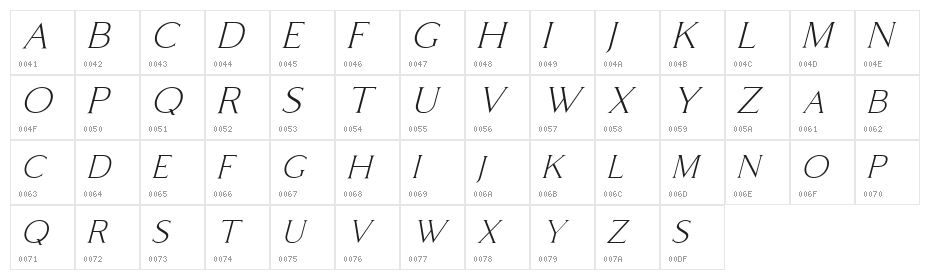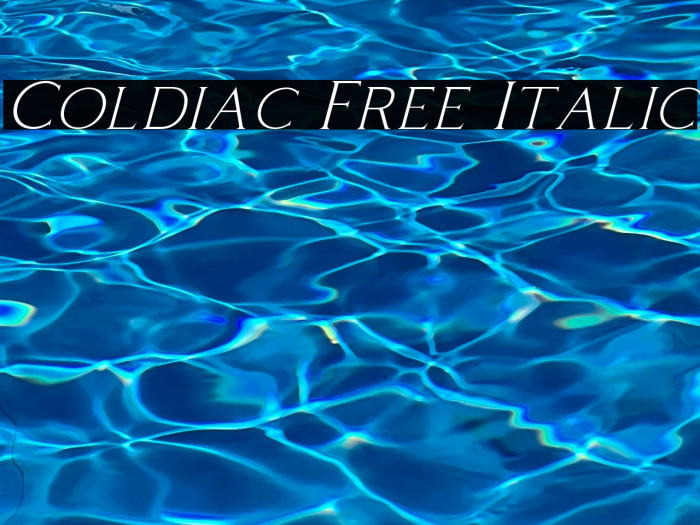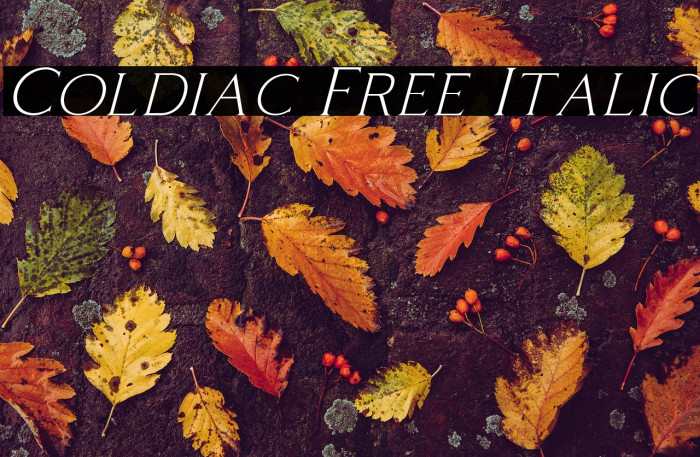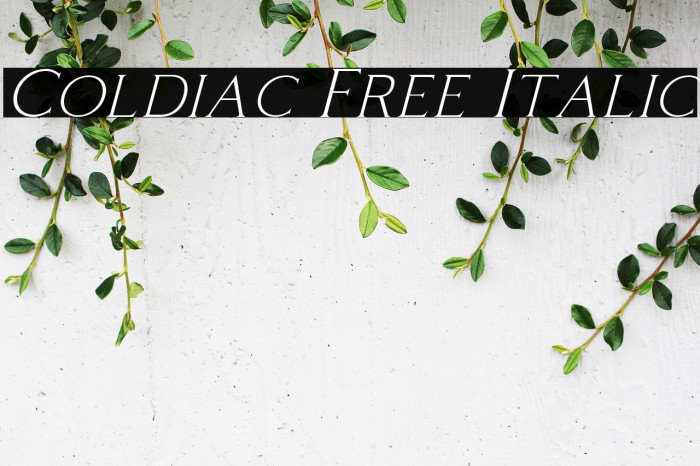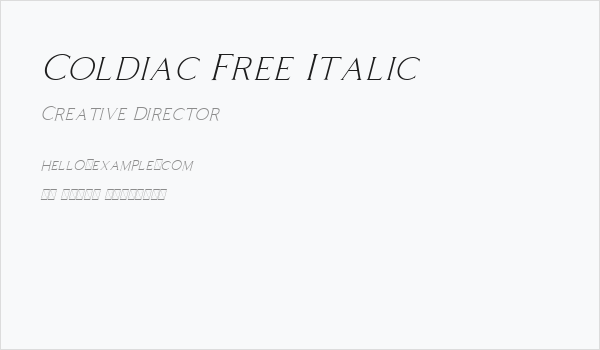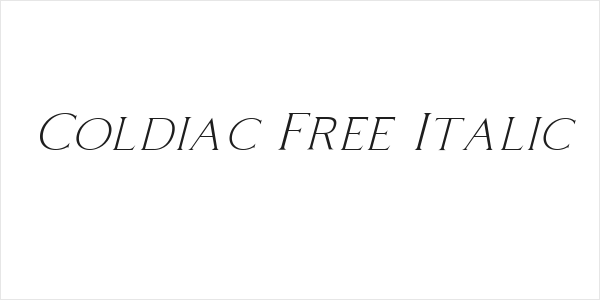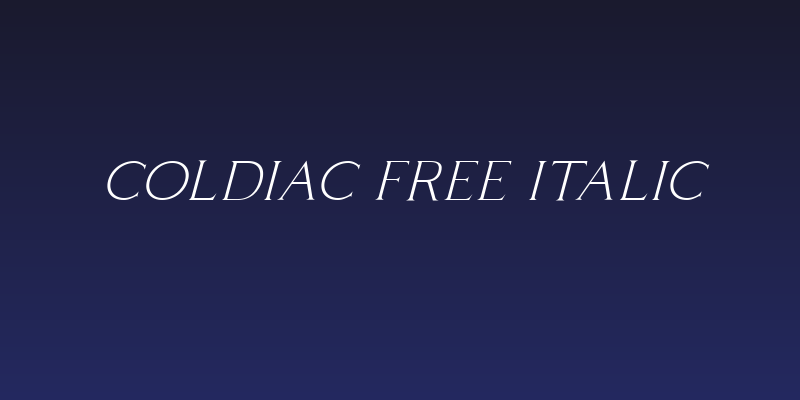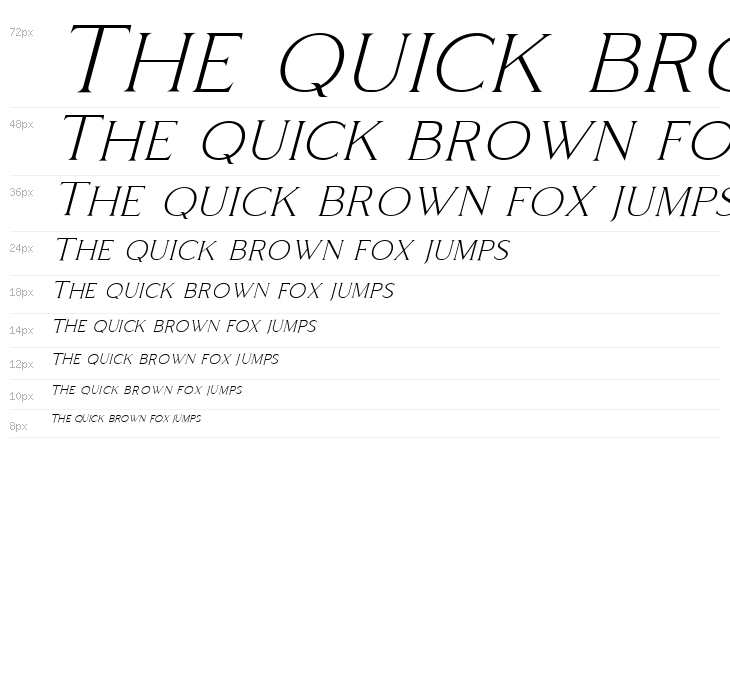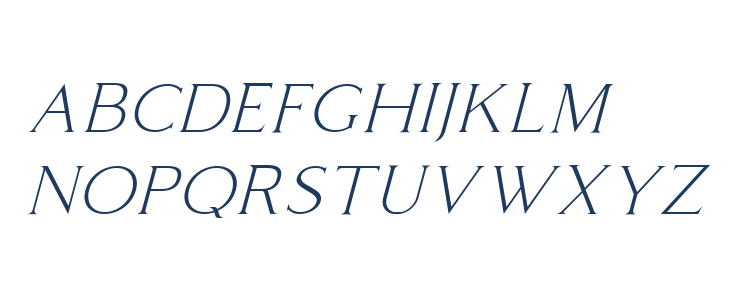
Coldiac Free Italic Font
Coldiac Free Italic Description
This elegant typeface features a refined and sophisticated italic style, characterized by its smooth, flowing lines and graceful curves. The letters exhibit a slight slant to the right, enhancing the font's dynamic and fluid appearance. The strokes are moderately thin, providing a sense of delicacy and finesse. The serif elements are subtle yet distinct, adding a touch of classic elegance without overpowering the overall design. This font maintains a consistent rhythm and balance across all characters, ensuring readability and aesthetic appeal. The spacing between characters is carefully considered, offering a harmonious and cohesive look.
| Proposed Projects | Ideal for use in luxury branding, wedding invitations, editorial design, and elegant packaging. |